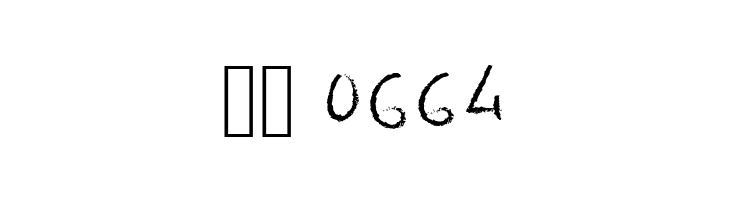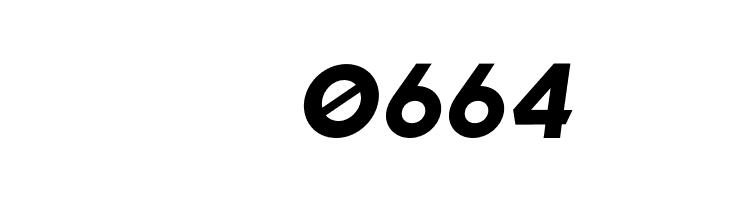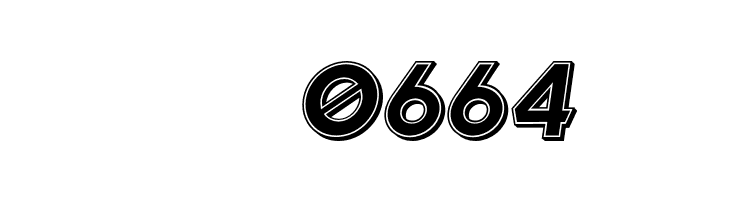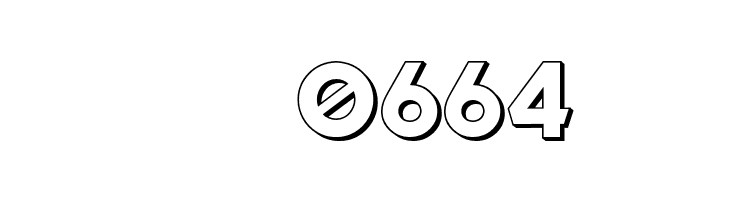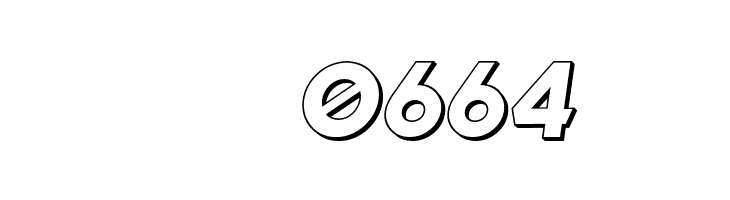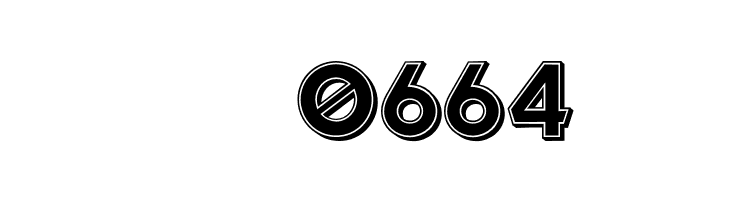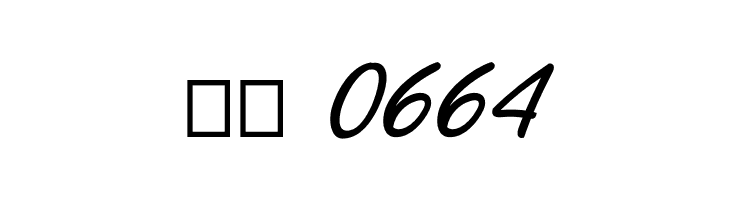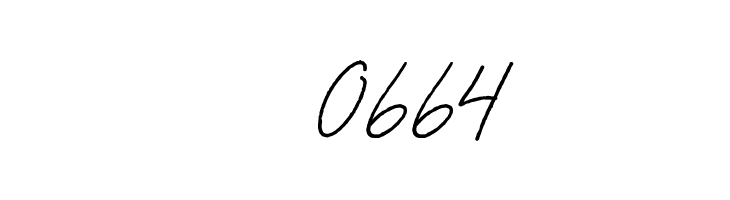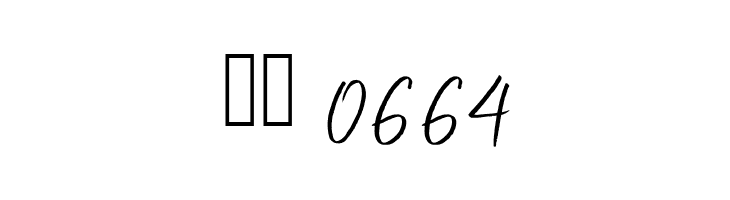
A flowing, cursive font with elegant, connected letters and consistent stroke width.
A fluid, cursive script font with interconnected strokes and a handwritten feel.
A playful, handwritten font with uneven strokes and a casual style.
A dynamic, fluid script font with a handwritten appearance.
A bold, angular font with a dynamic and modern style.
A bold, 3D italic font with a filled and outlined style.
A bold, 3D font with filled interiors and prominent outlines, perfect for impactful designs.
A bold, 3D italic font with outlined characters and a modern style.
A bold, 3D font with strong outlines and a modern, dynamic style.
A bold, geometric font with strong lines and a modern aesthetic.
Pattern-based decorative font with geometric and ornamental motifs.
A bold, hand-drawn display font with an artistic and eclectic style.
A bold, modern sans-serif font with a slightly condensed style.
A casual, handwritten-style font with fluid, connected characters.
Casual handwritten font with playful strokes.
A lively and flowing script font with elegant, cursive letterforms.
A flowing, cursive font with elegant, sweeping strokes and a handwritten appearance.
A bold, modern sans-serif typeface with strong, uniform strokes.
A modern, italicized font with clean lines and balanced proportions.
A bold and impactful typeface with a modern, clean design.
A modern, italic sans-serif font with clean lines and a slightly condensed form.
A modern sans-serif font with a clean, professional appearance and slightly condensed structure.
A bold, angular font with a playful and dynamic style.
A dynamic and expressive handwritten font with fluid cursive strokes.
An elegant, flowing script font with a refined and sophisticated style.
A bold, expressive script font with dynamic cursive strokes and high contrast.
A graceful script font with fluid, connected strokes and a natural handwriting style.
A fluid, elegant script font with a handwritten style.
A delicate and elegant script font with graceful, flowing strokes.